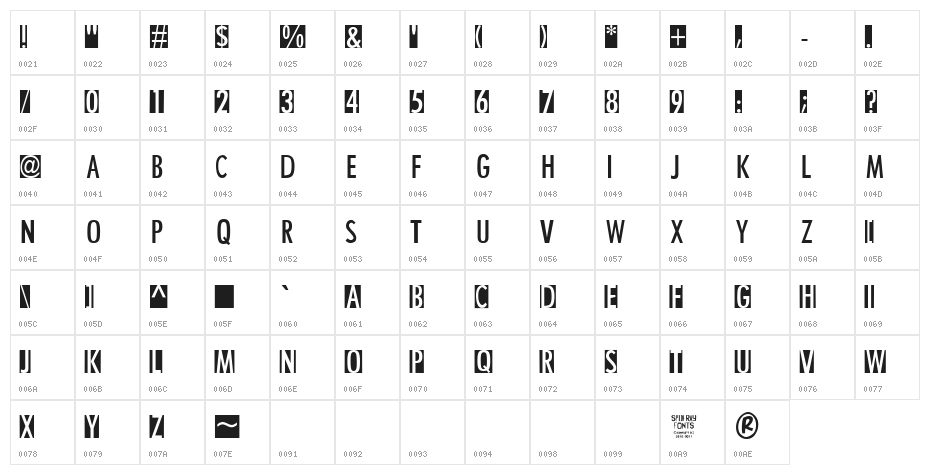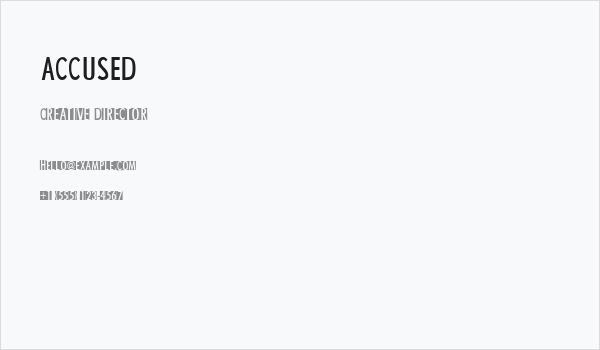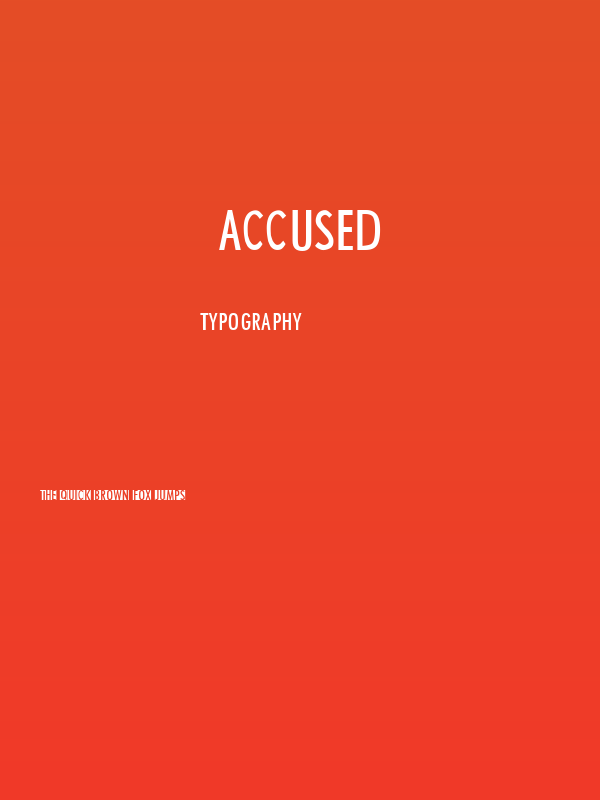
ACCUSED Font
ACCUSED Description
This font is a bold, modern sans-serif typeface with a strong presence. The uppercase letters are tall and narrow, giving a condensed appearance, while the lowercase letters maintain a consistent height that complements the uppercase. The numbers are equally bold, ensuring readability and impact. Special characters are designed to match the overall style, with clean lines and a contemporary feel. The font's high contrast between thick and thin strokes adds to its striking look, making it suitable for attention-grabbing designs.
| Proposed Projects | Ideal for headlines, posters, branding, and advertising where a strong visual impact is desired. |